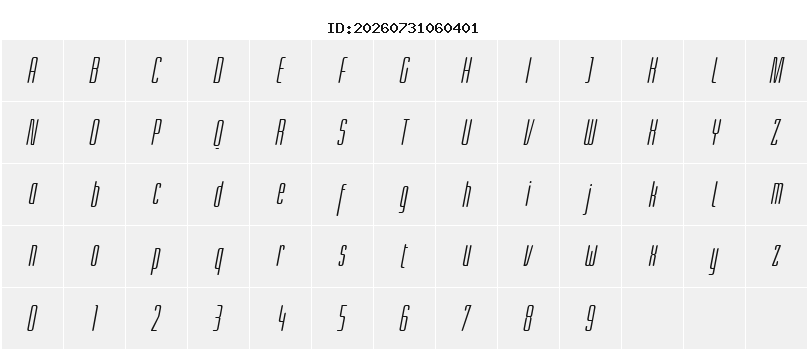
• Font Name: LTLichtwerk
• Font ID: ParaType,Inc.onthebehalfandbythenameofLinotypeLibraryGmbH: Linotype Lichtwerk Italic: 2000
• Full Font Name: Linotype Lichtwerk Italic
• PostScript Name: LinotypeLichtwerk-Italic
• Designer: Bernd Pfannkuchen
About LTLichtwerk.ttf
LTLichtwerk.ttf is a modern, elegant sans-serif font designed for ultimate readability and visual harmony. Perfect for branding, headlines, web design, and print materials.